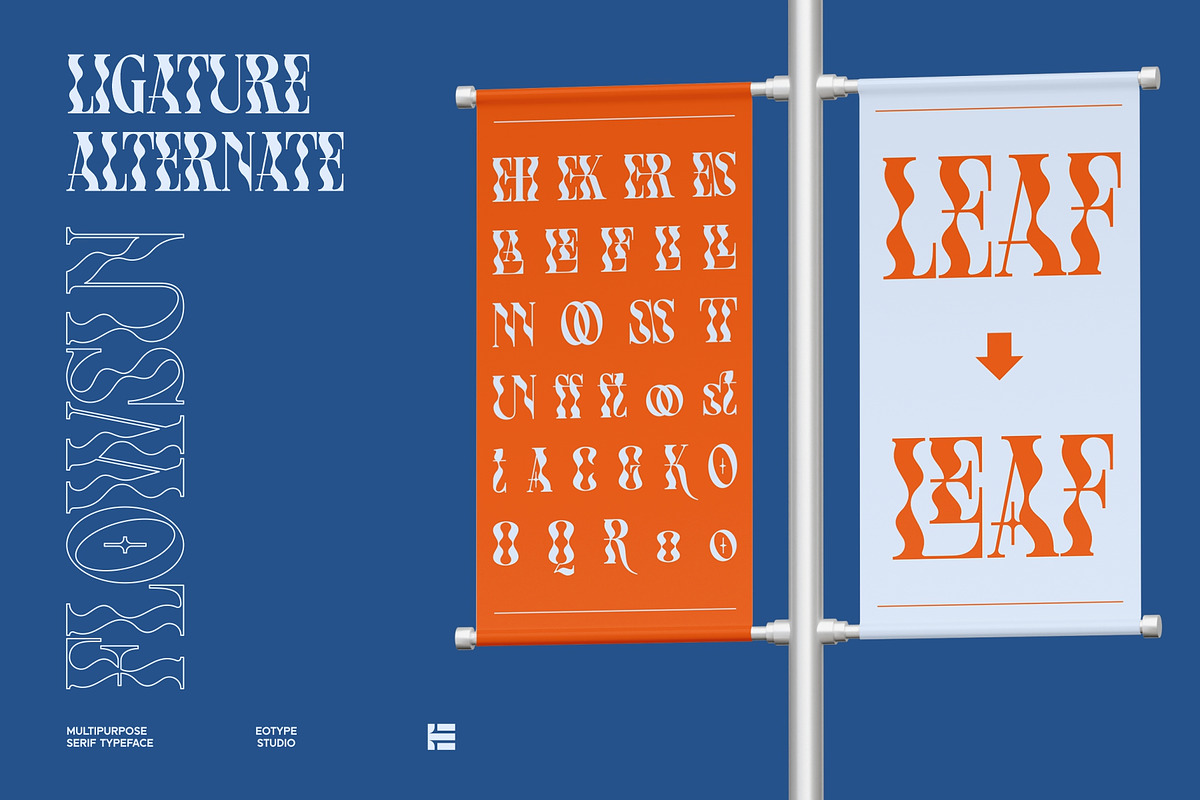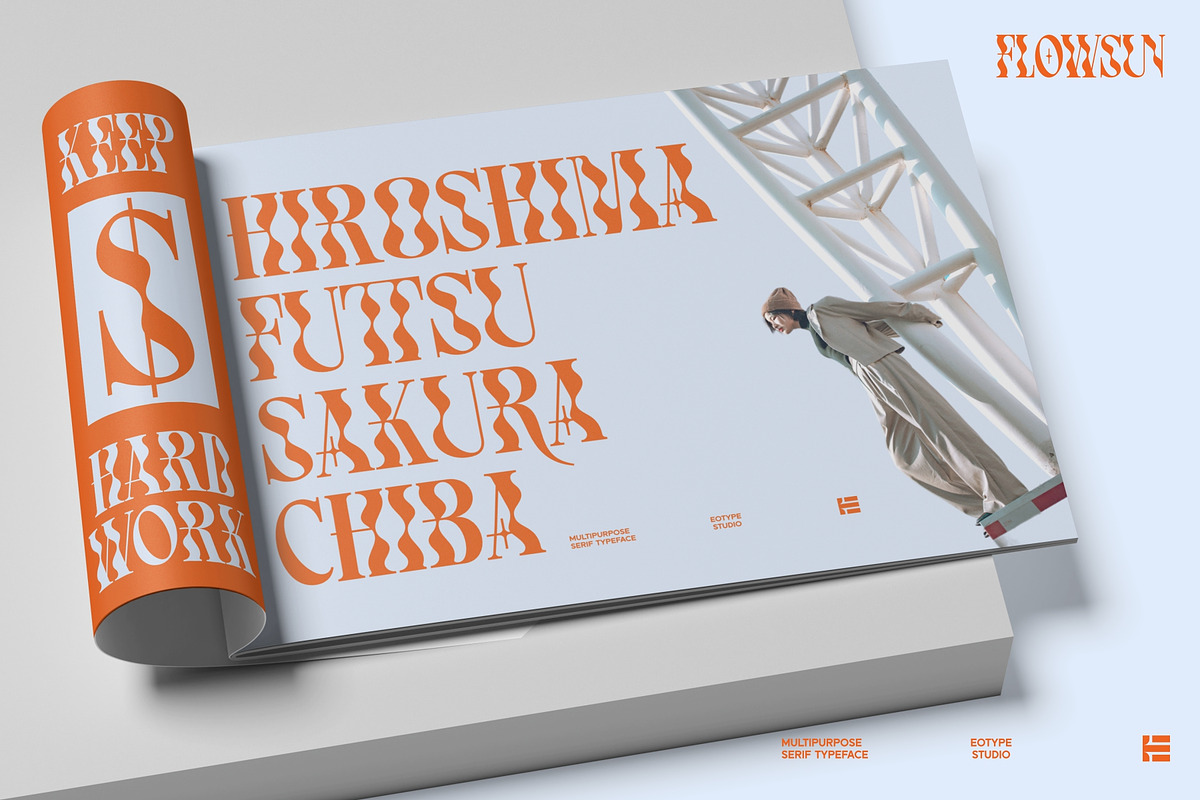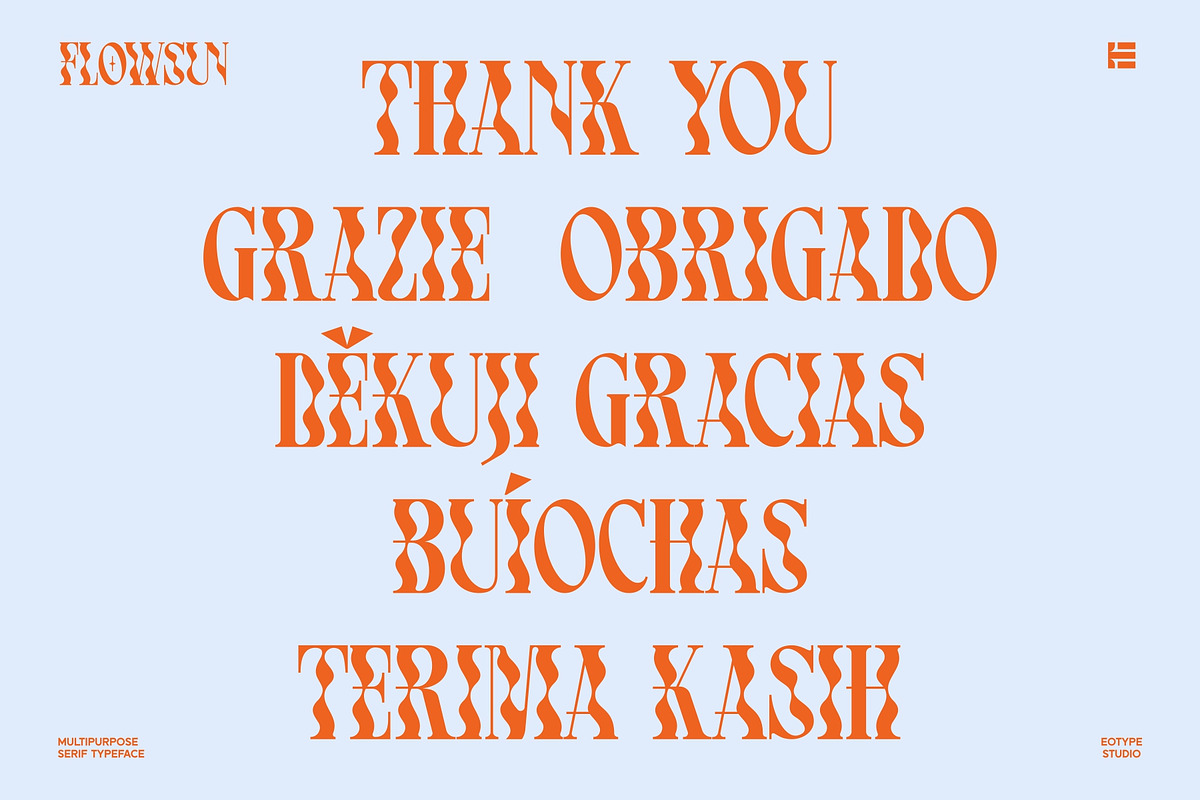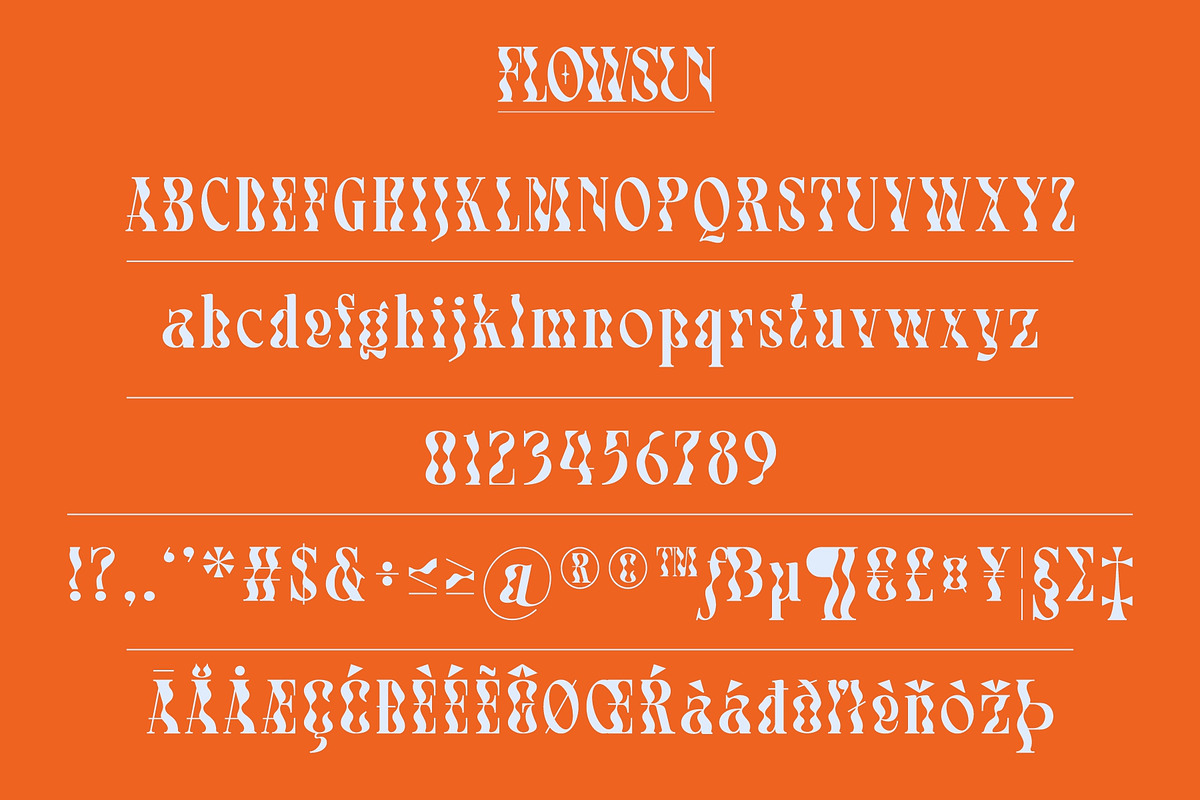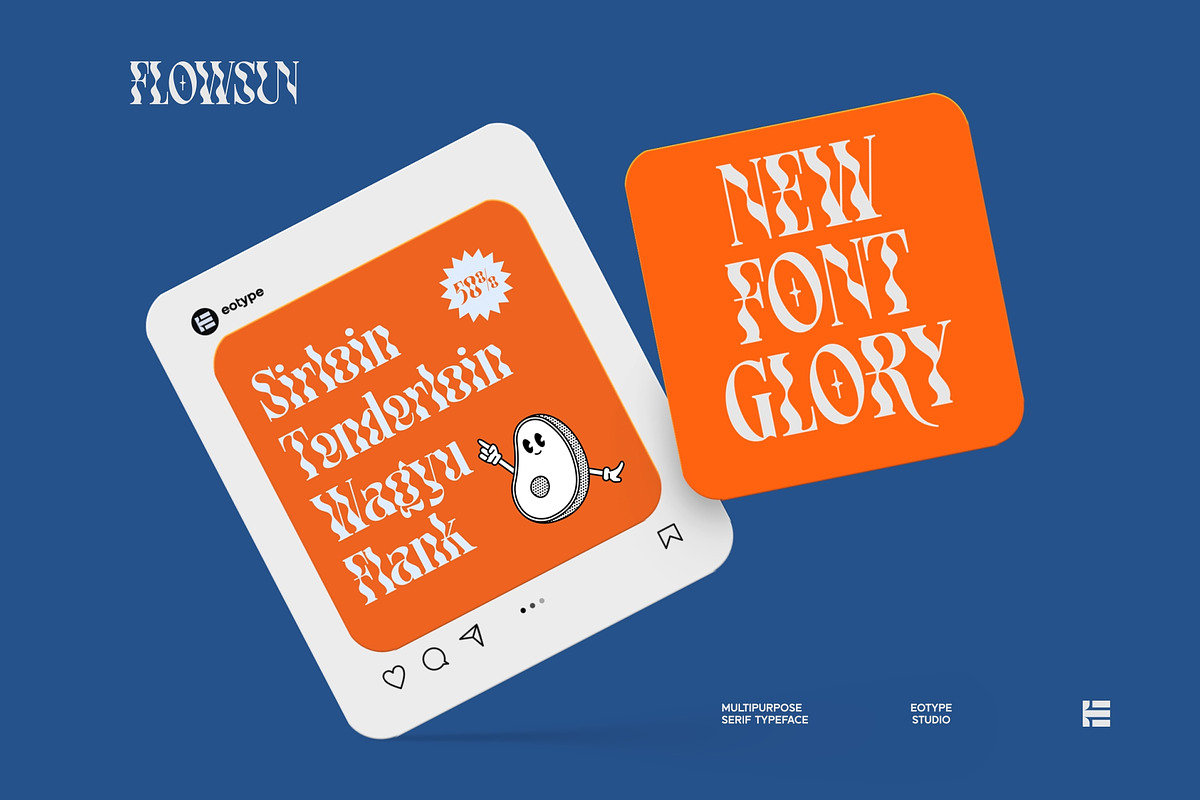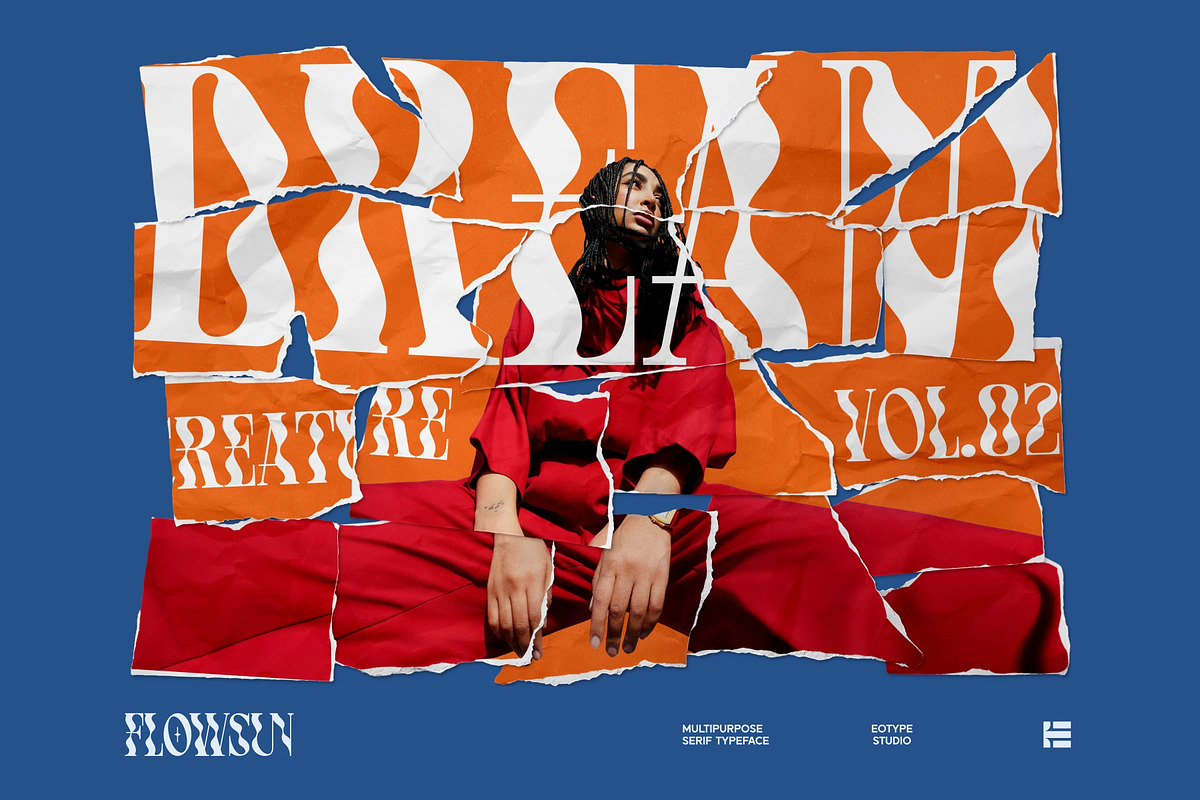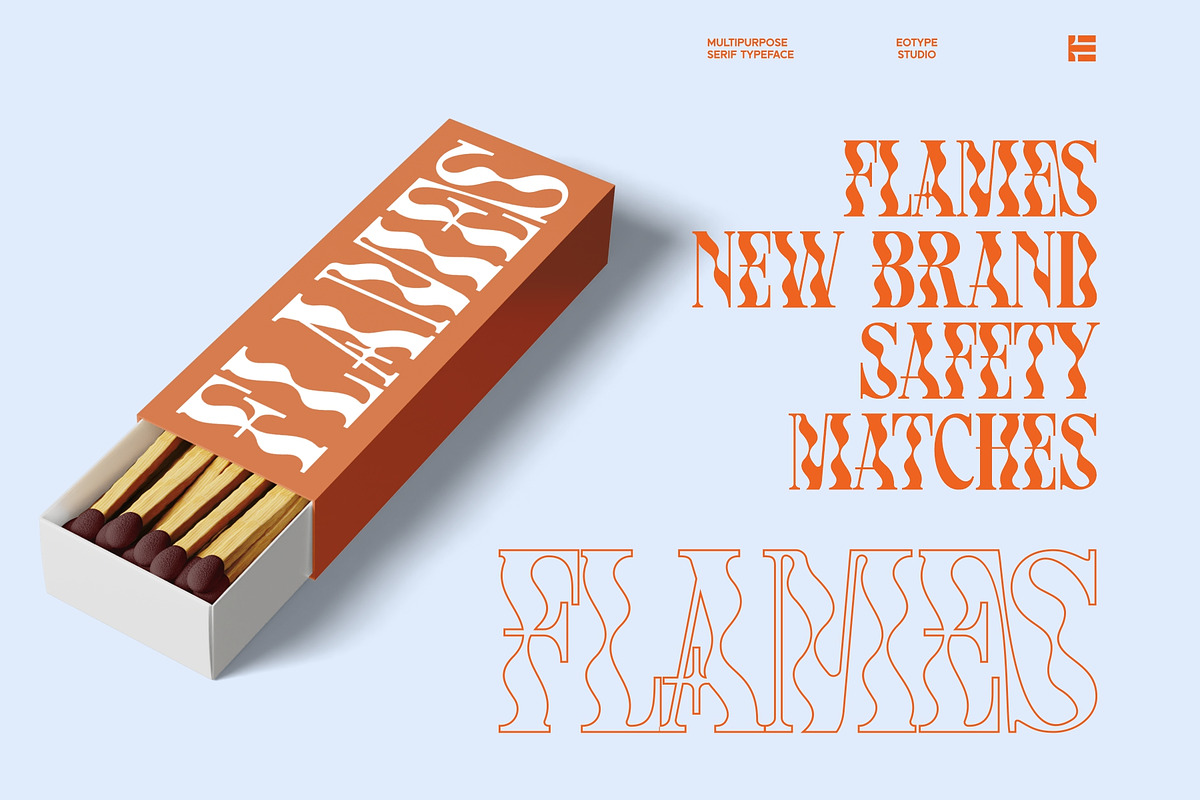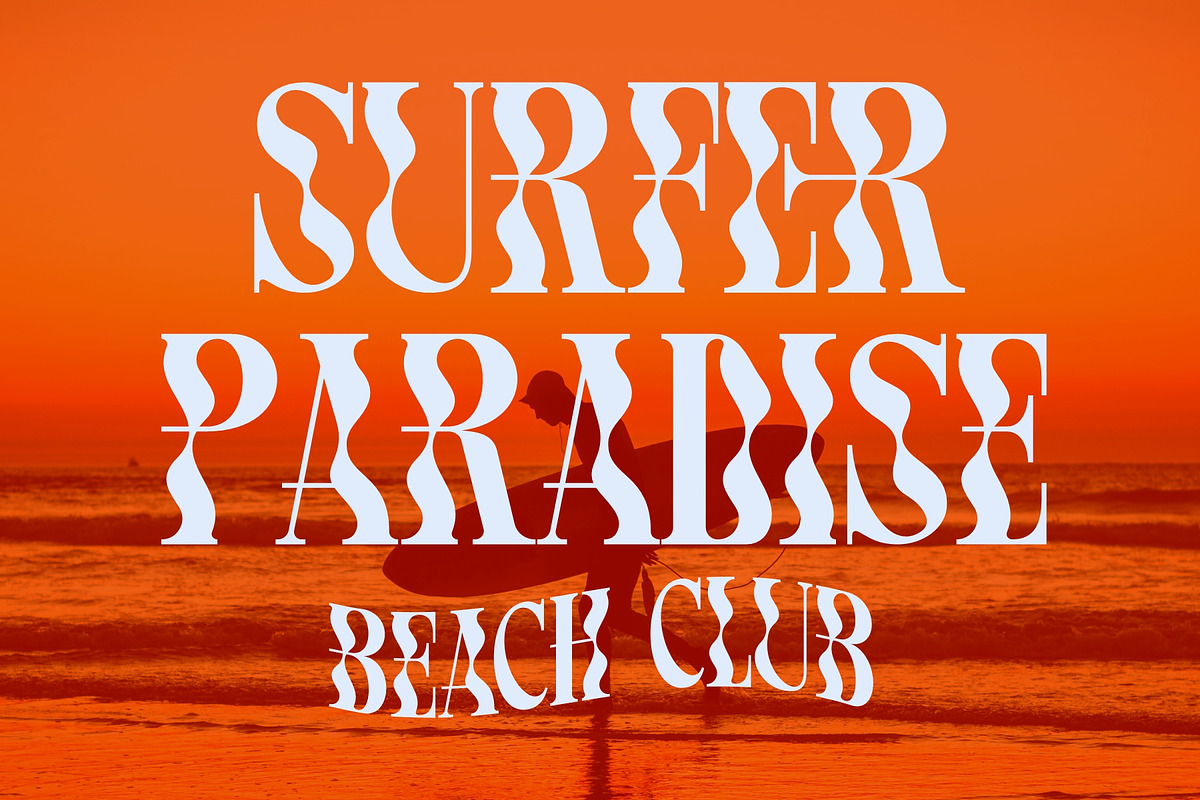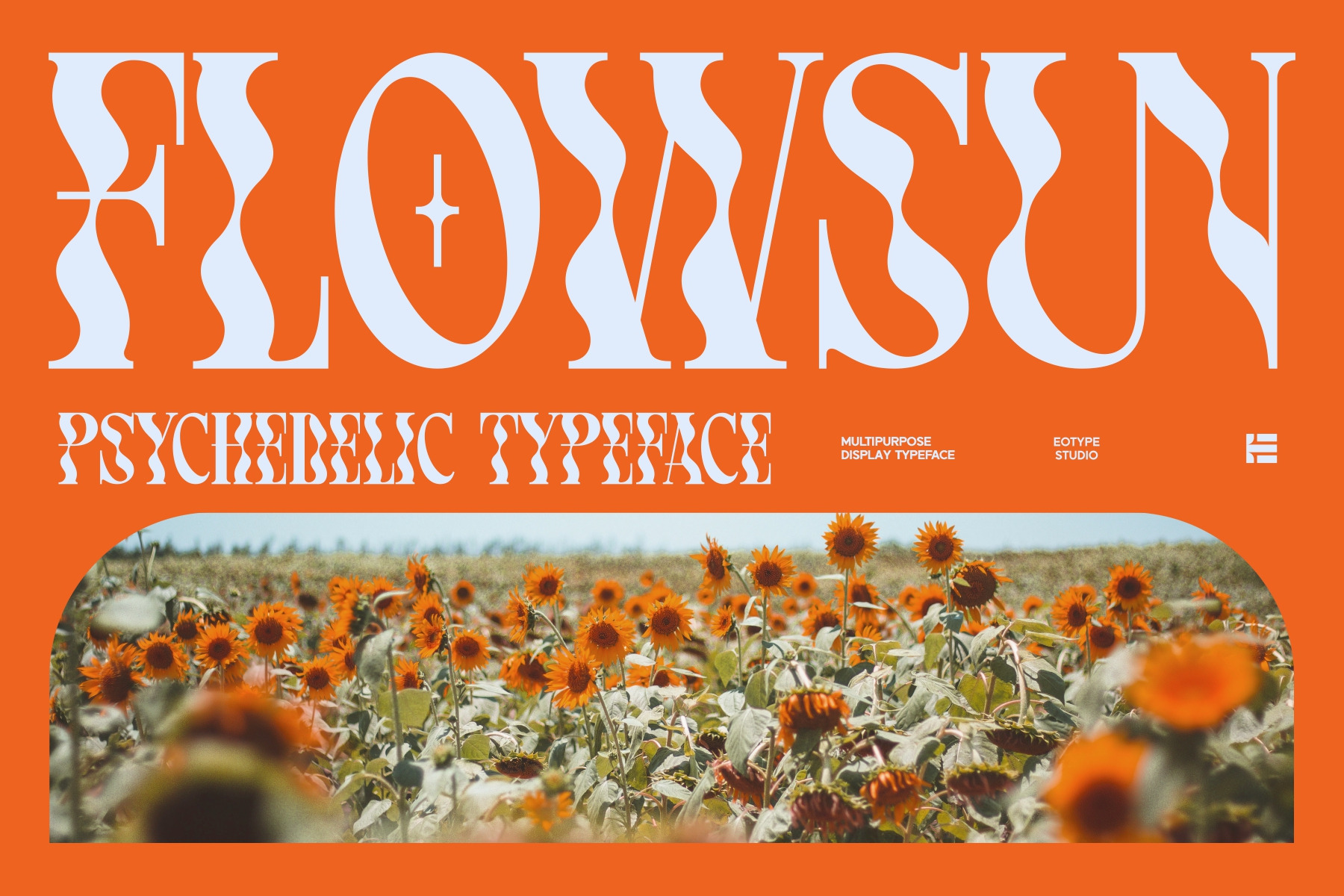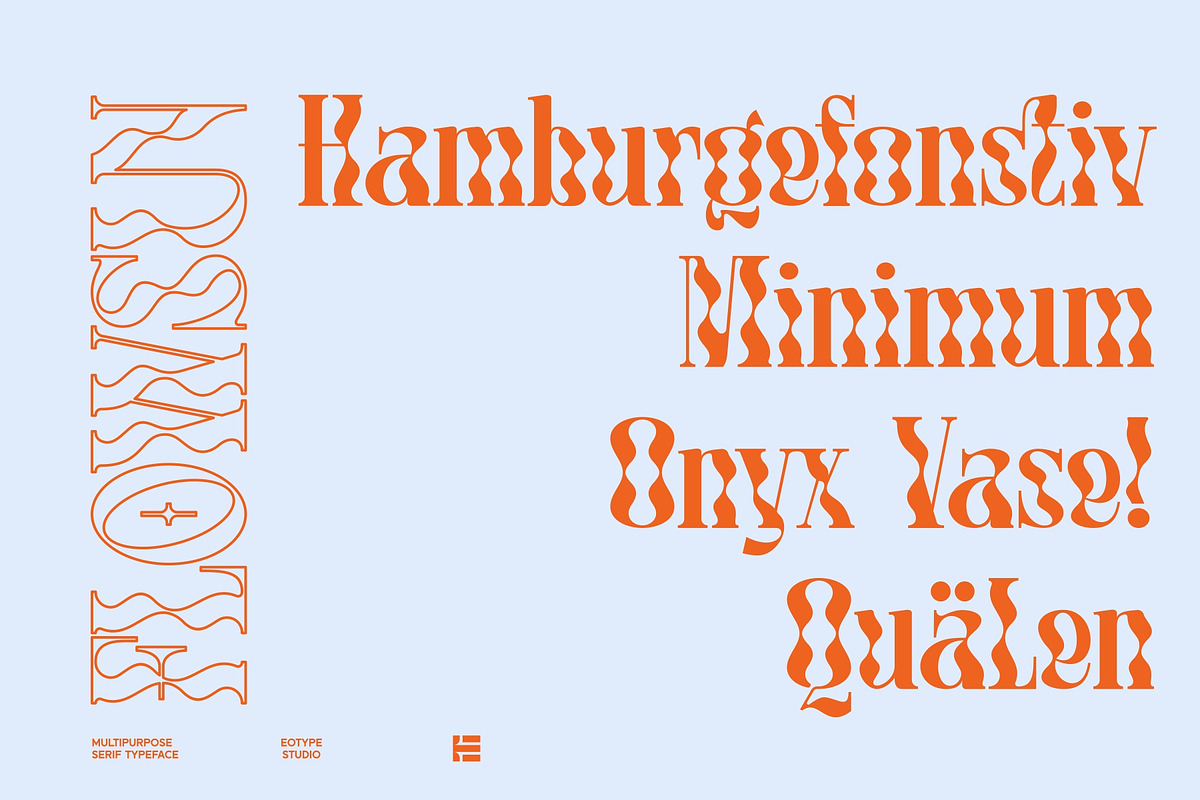
Flowsun | Psychchedelic Serif Font
Flowsun is a psychchedelic serif font characterized by contrast between thick and thin lines. This font has a condensed serif style that features will add some fun vibes to your designs. This font has alternate and ligature features that give you access to a unique collection of letters.